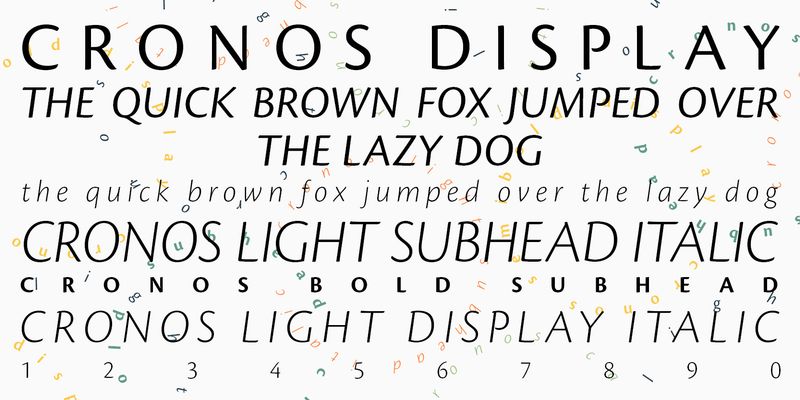
Cronos specimen
Cronos
Created by Adobe type designer Robert Slimbach, Cronos is a new sans serif typeface family that embodies the warmth and readability of oldstyle roman typefaces. Because it derives much of its appearance from the calligraphically inspired type of the Italian Renaissance, Cronos has an almost handwritten appearance, setting it apart from most other sans serif designs and making it an effective choice for text composition. The italic design was inspired by early chancery style italics and is both elegant and distinguished. U.S. Patent Design 400,913.